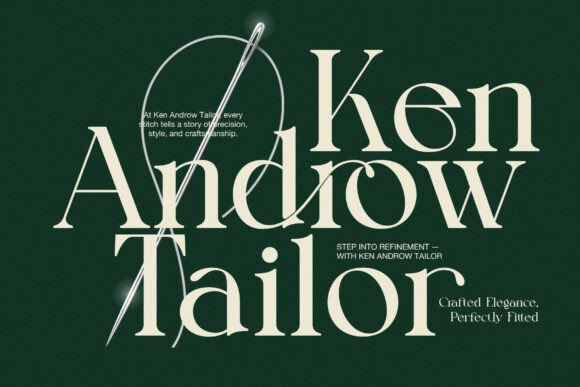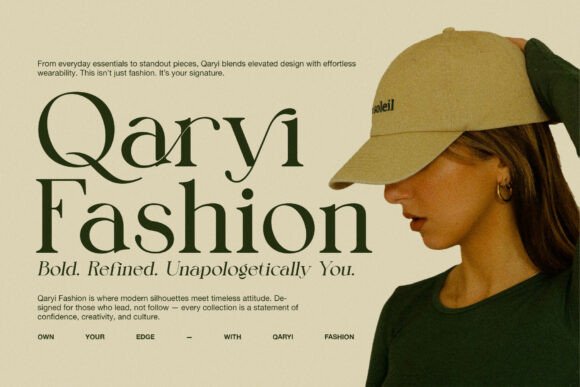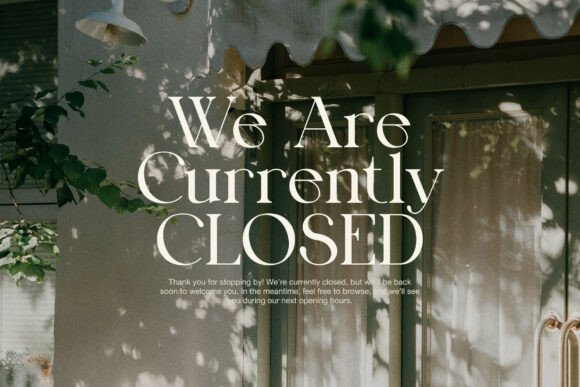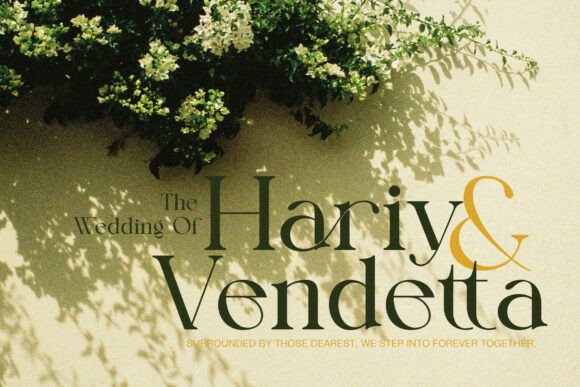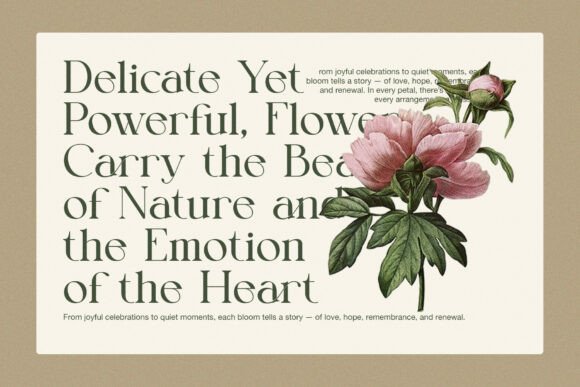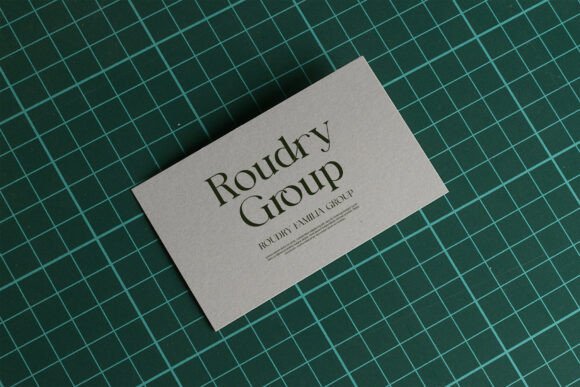
Discover the Elegance of Grigane Font: A Timeless Serif Display Font
In the world of typography, few fonts manage to convey elegance, emotion, and refined character as effortlessly as Grigane. This stunning serif display font is a masterpiece of modern design, blending the sophistication of editorial design with the luxury aesthetics of high-end branding. Whether you’re a designer looking for a font that exudes class and poise or a crafter seeking to add a touch of elegance to your projects, Grigane is an exceptional choice.
The Inspiration Behind Grigane
Grigane’s design is rooted in the world of editorial design and modern luxury aesthetics. The font’s creator drew inspiration from the graceful curves and confident serif structures found in high-end publications and branding. The result is a font that feels both timeless and contemporary, perfect for designers seeking to create visually stunning projects that stand out from the crowd.
Key Features of Grigane Font
So, what makes Grigane such a unique and versatile font? Here are some of its key features:
- Smooth Contrast: Grigane’s smooth contrast between thick and thin strokes creates a sense of visual flow, making it perfect for headlines and branding.
- Delicate Terminals: The font’s delicate terminals add a touch of elegance and sophistication to its overall design.
- Artistic Details: Grigane’s artistic details enhance its visual appeal, making it perfect for designers seeking to create visually stunning projects.
- Stylish Alternates: The font includes stylish alternates, allowing designers to create unique and personalized typography.
- Carefully Crafted Ligatures: Grigane’s ligatures add an extra layer of sophistication to its design, making it perfect for high-end branding and editorial projects.
Why Choose Grigane Font?
With so many fonts available, why choose Grigane for your next project? Here are just a few reasons:
- Timeless Appeal: Grigane’s classic design ensures that it will remain a timeless choice for years to come.
- Versatility: The font’s versatility makes it perfect for a wide range of projects, from editorial design to branding and packaging.
- Elegance: Grigane’s elegant design makes it perfect for designers seeking to create sophisticated and refined typography.
- Expressiveness: The font’s smooth contrast and artistic details make it perfect for designers seeking to create visually stunning projects.
Using Grigane in Your Projects
Grigane is an incredibly versatile font that can be used in a wide range of projects, including:
- Editorial Design: Grigane’s elegant design makes it perfect for use in magazines, newspapers, and other editorial projects.
- Branding: The font’s sophisticated design makes it perfect for use in high-end branding and packaging.
- Headlines: Grigane’s smooth contrast and artistic details make it perfect for use in headlines and titles.
- Display Typography: The font’s elegant design makes it perfect for use in display typography, such as posters, billboards, and signage.
In conclusion, Grigane is an exceptional serif display font that offers a unique combination of elegance, emotion, and refined character. Its timeless design, versatility, and expressiveness make it perfect for designers seeking to create visually stunning projects that stand out from the crowd. Whether you’re working on an editorial project, branding campaign, or display typography, Grigane is an excellent choice.
With its smooth contrast, delicate terminals, and artistic details, Grigane is sure to elevate your typography to the next level. So why wait? Discover the elegance of Grigane font today and start creating stunning projects that showcase your unique style and creativity.